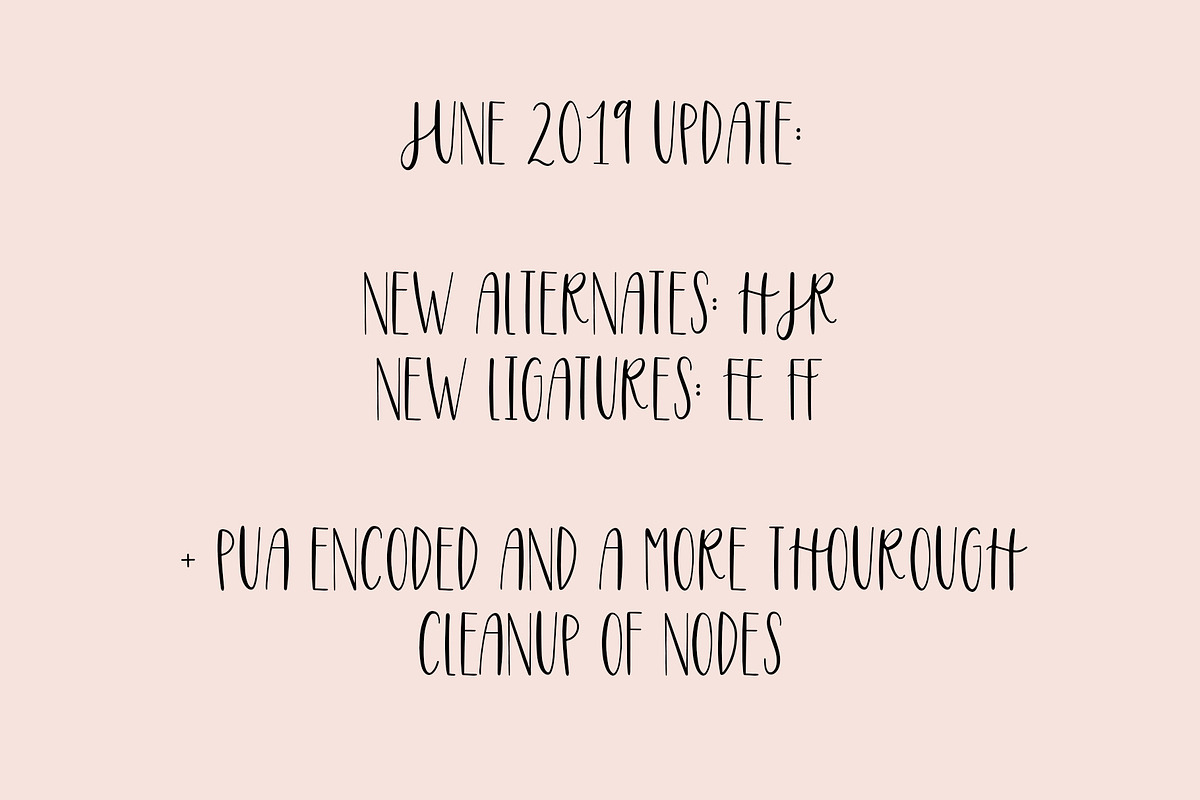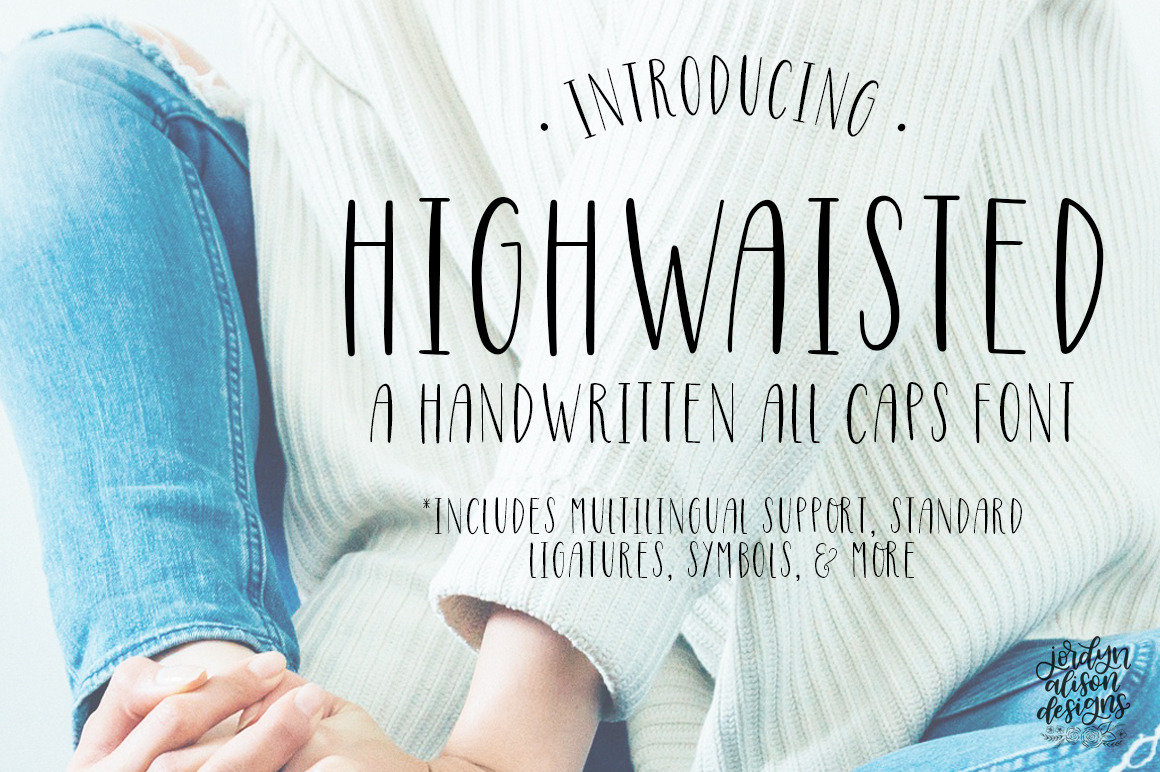
Highwaisted Skinny Caps Font
June 2019 Update: The font has now been fully PUA encoded. It also has been cleaned up more, and I've added new alternates (H,J,R) and new ligatures (EE FF).
Highwaisted is a hand-lettered skinny all caps font!
Highwaisted font features:
- Full set of uppercase letters
- 7 ligatures
- 4 stylistic alternates